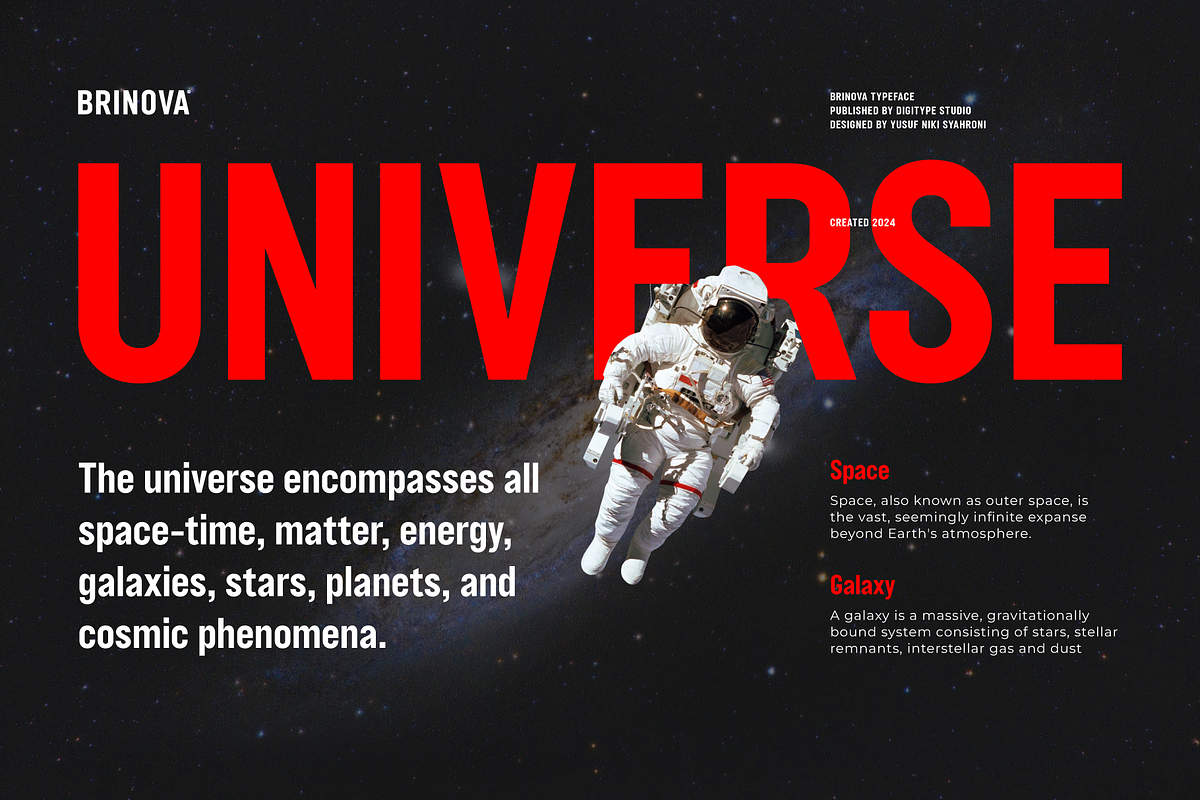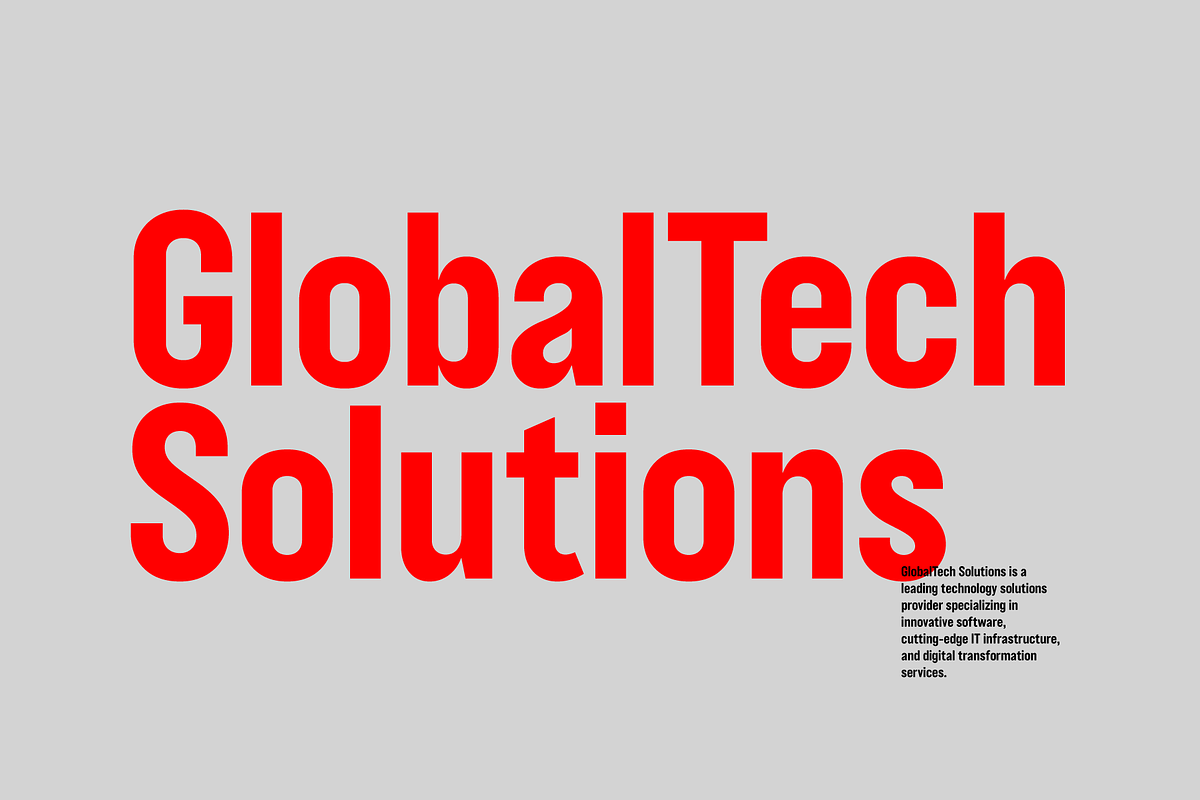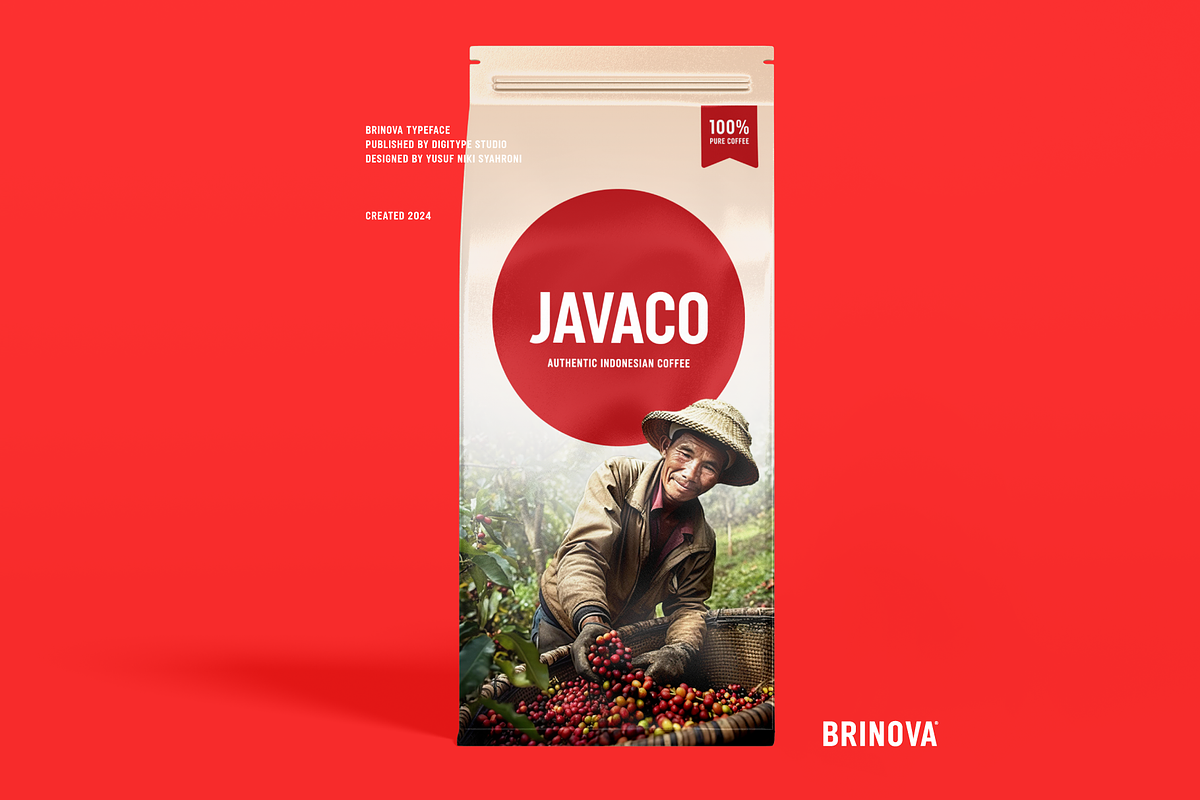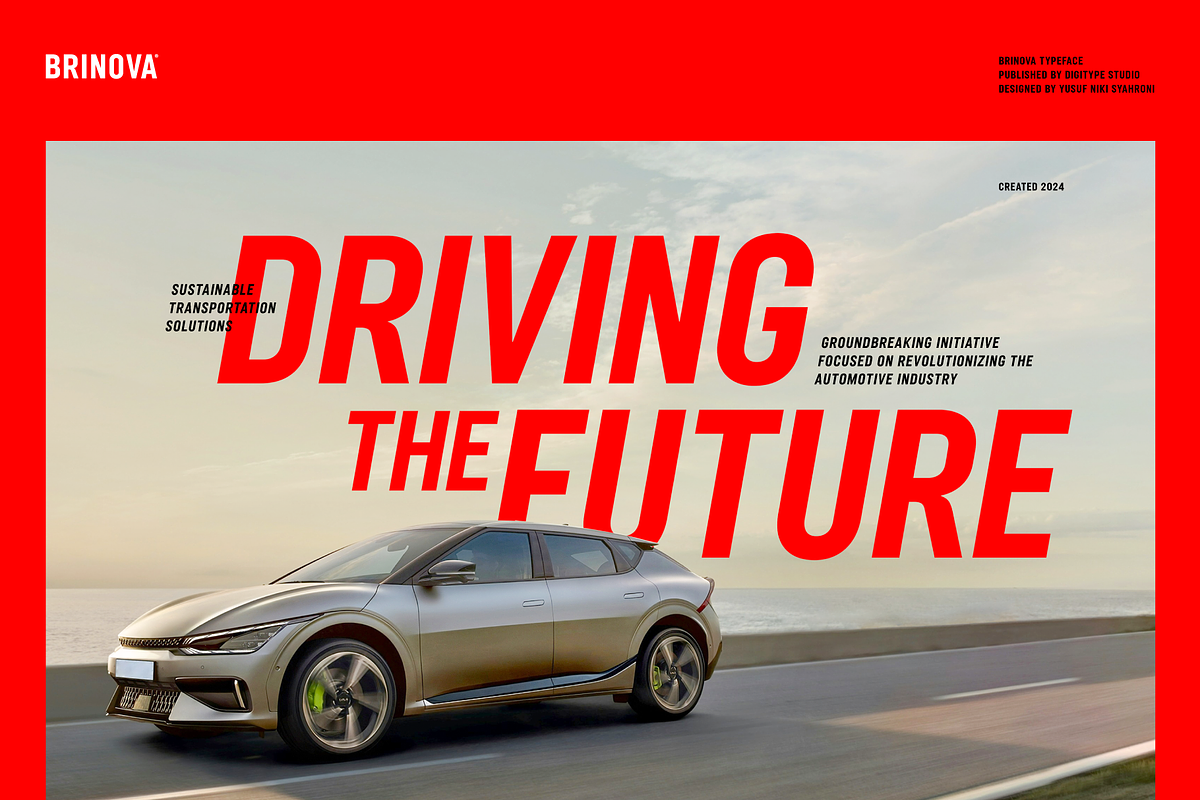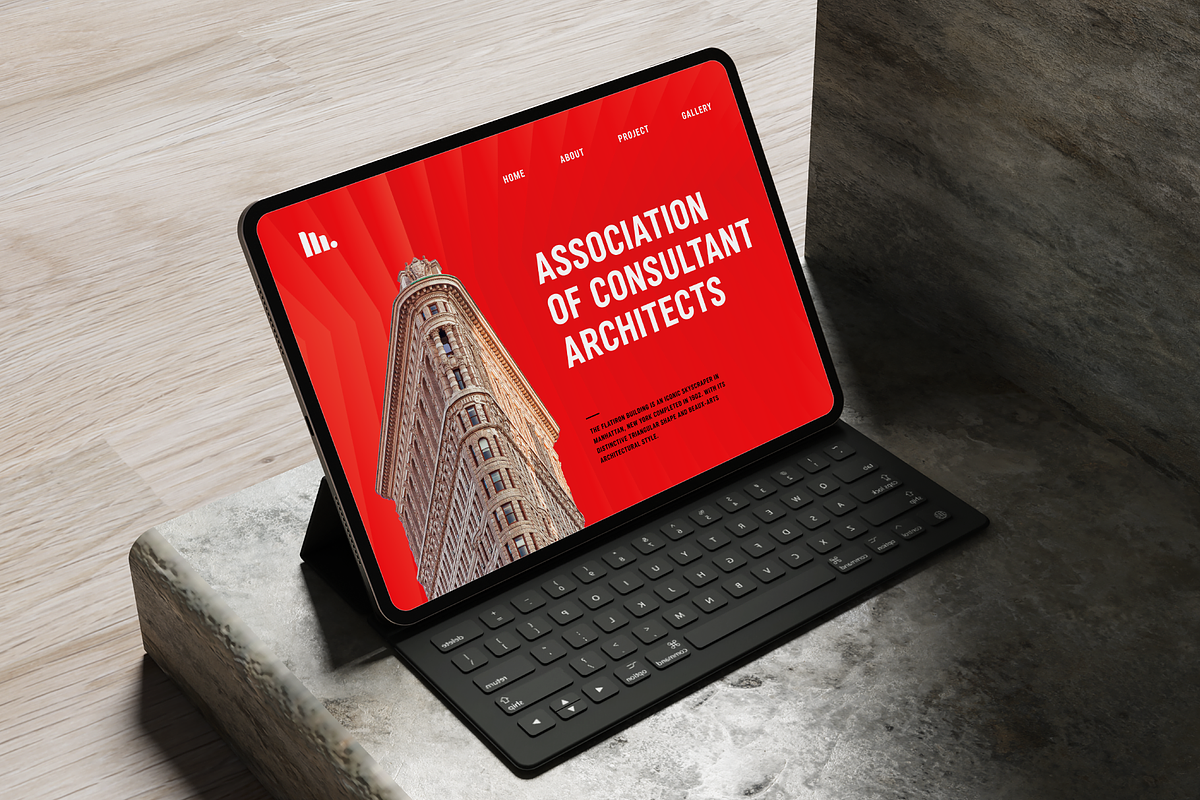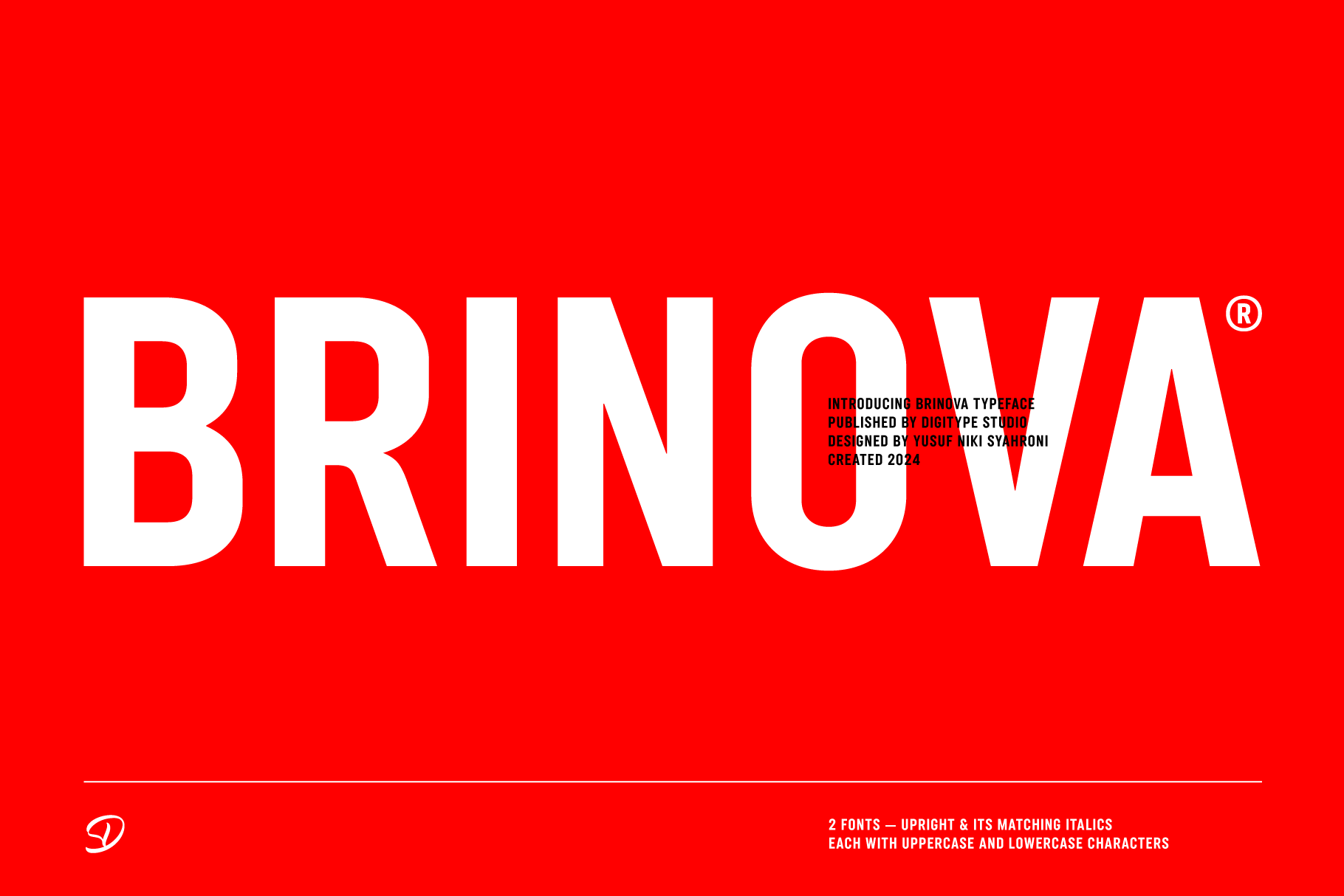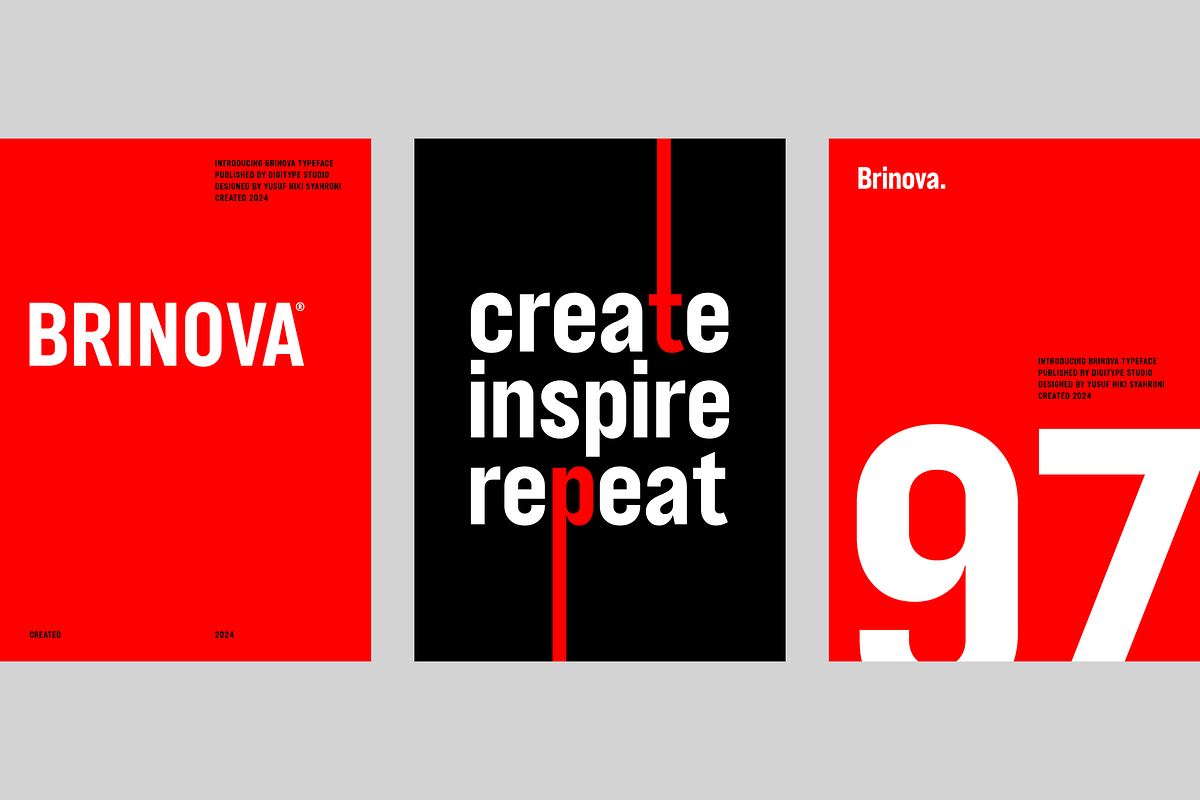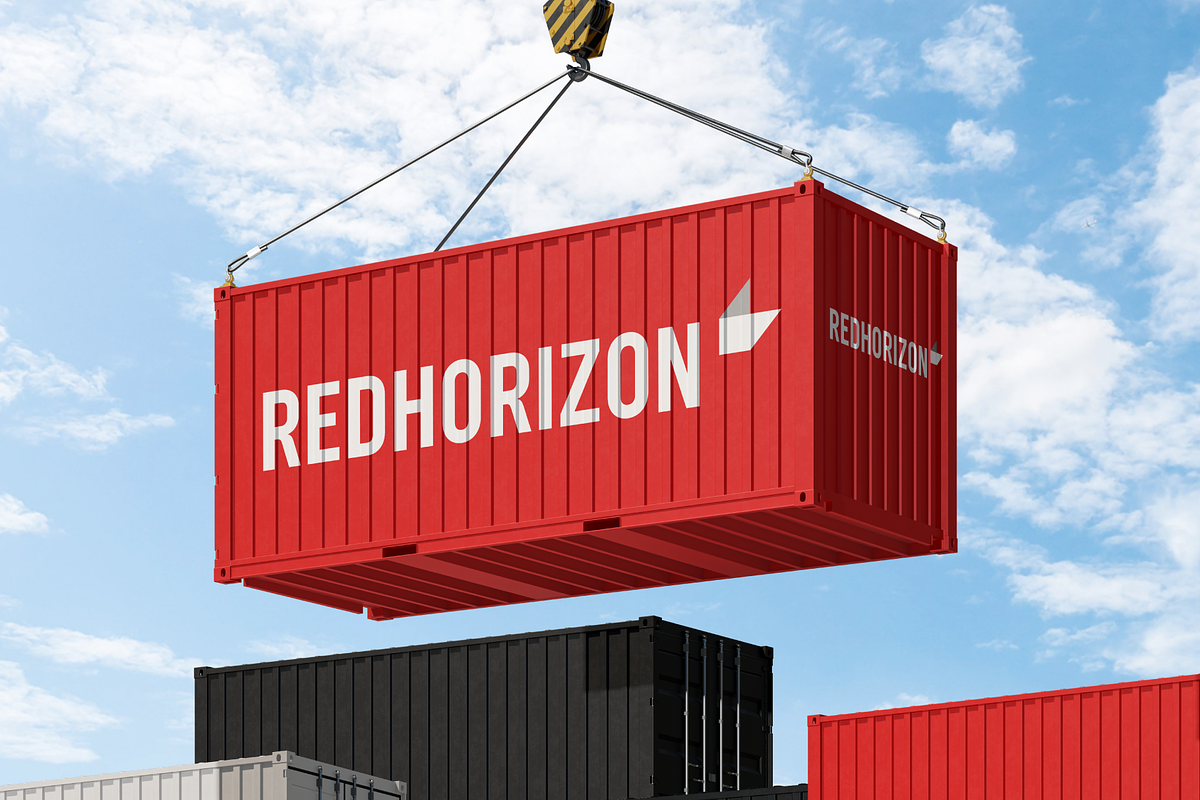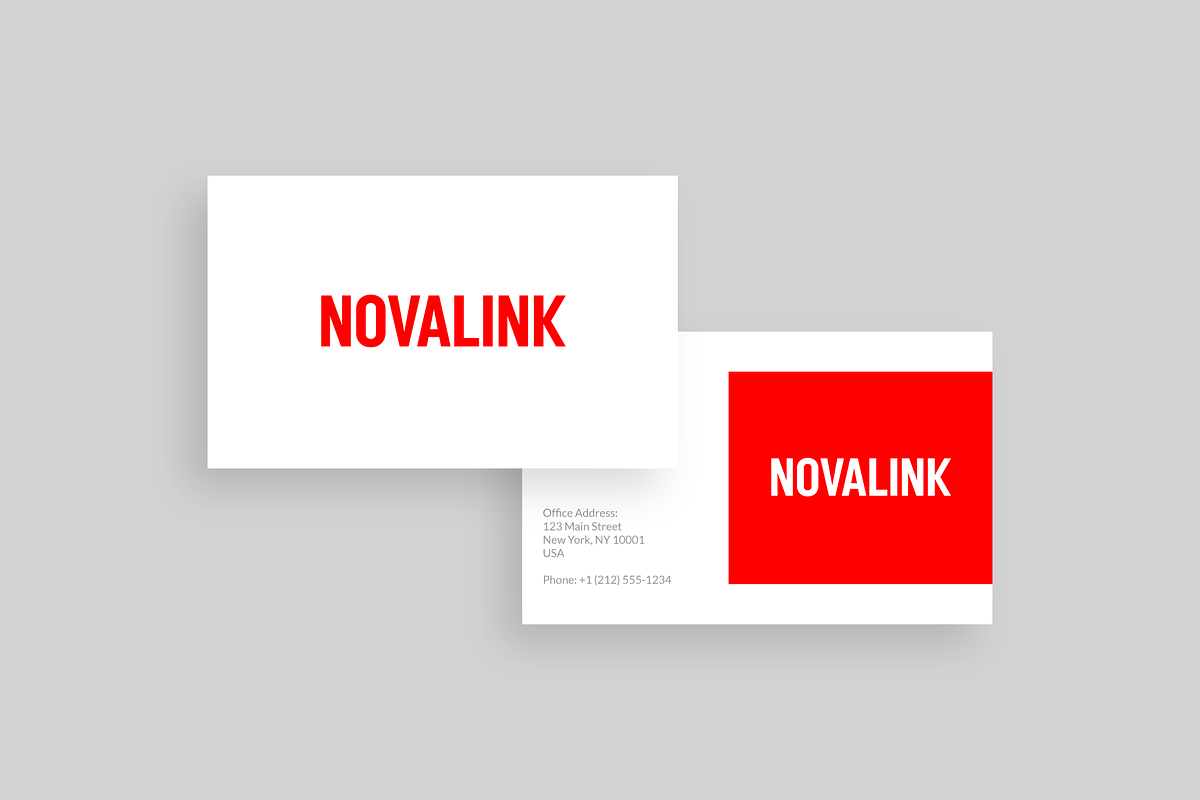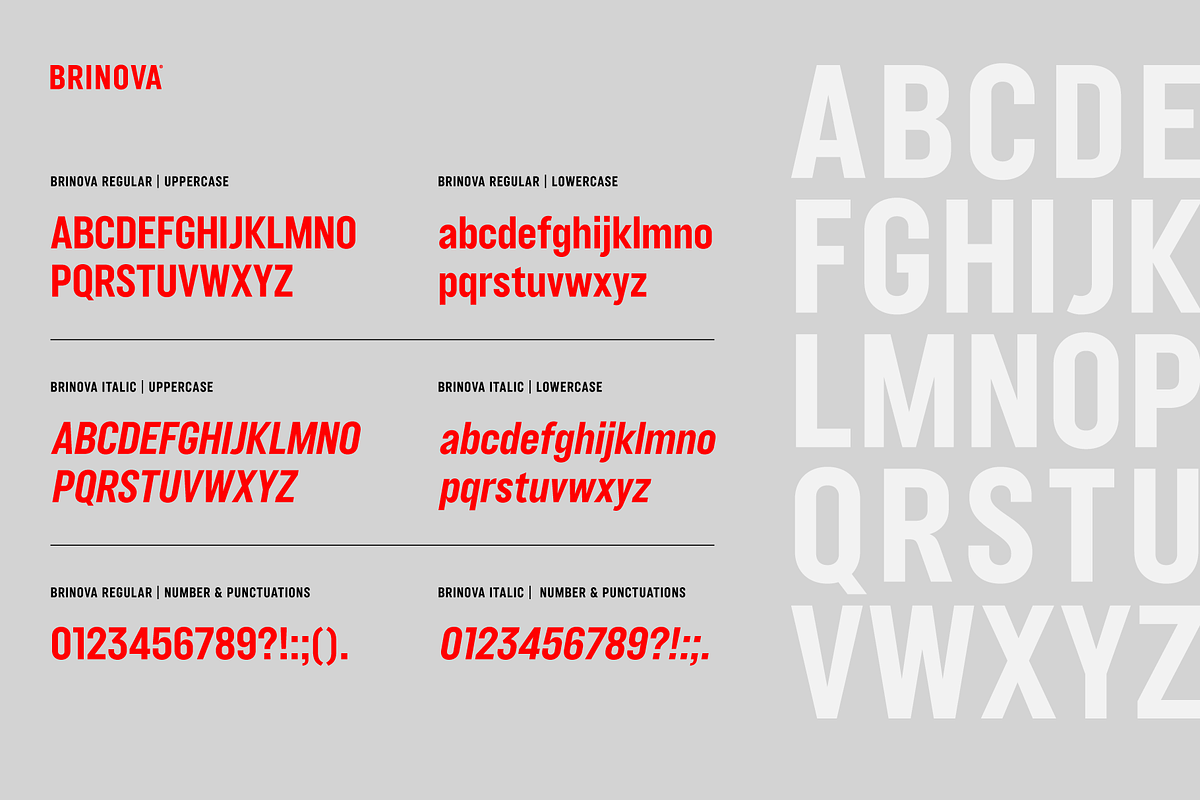
Brinova is a modern sans-serif font that offers the perfect balance between strength and elegance. Brinova features a clean, precise, and versatile design. Each letter is meticulously crafted, ensuring high readability and visual appeal in various sizes. Ideal for a wide range of design applications, from branding to editorial, Brinova brings a contemporary and professional touch to every project.